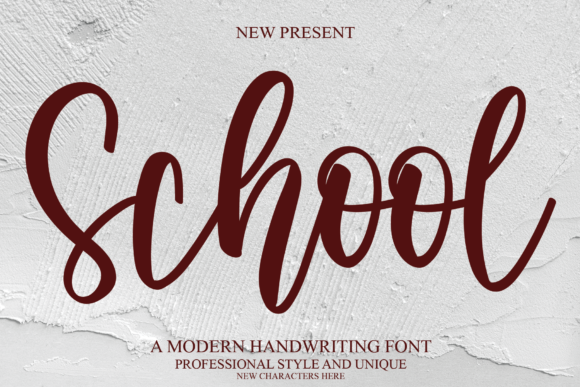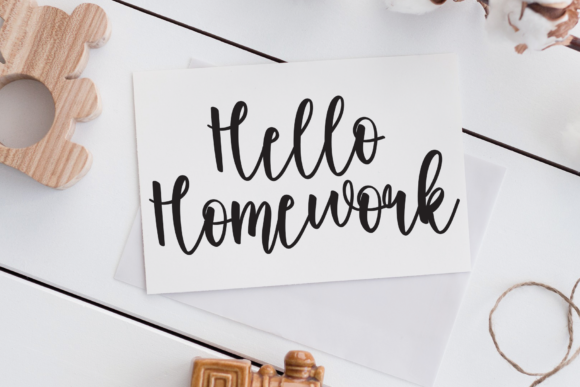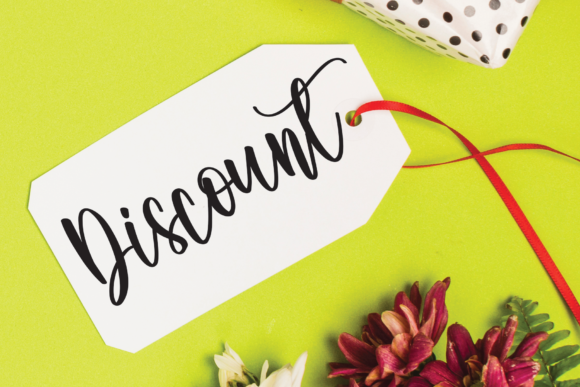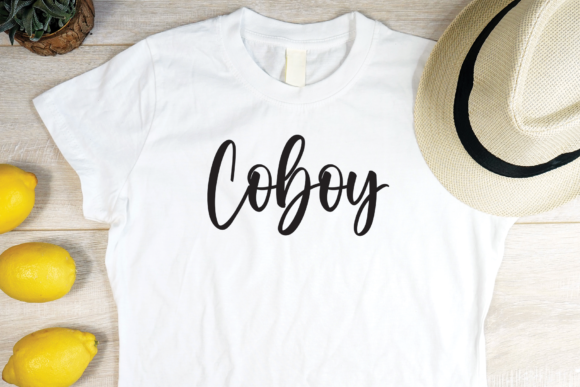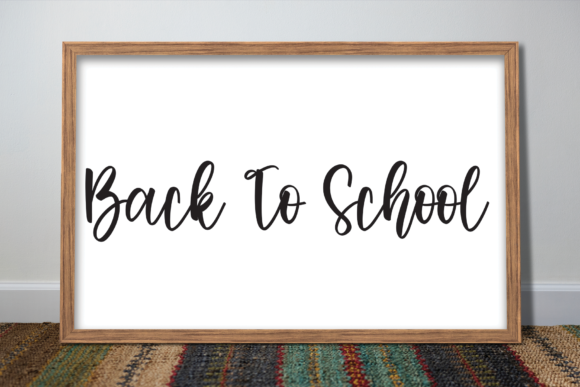
School Font
About School Font
School is a beautiful and refined script font. It has a classy, elegant and modern look that can be used for logos, branding, invitations, stationery, wedding designs, social media posts, and much more!